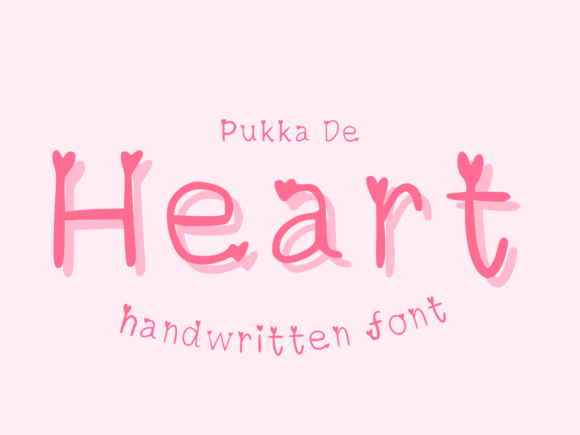
Bring a Little Love to Your Designs
Have you ever stared at a blank page, feeling the pressure to create something truly special? Maybe you’ve been tasked with designing a wedding invitation, a birthday card, or even a social media post that captures the essence of love. Whatever the occasion, the key to making your design stand out is to add a touch of personality and whimsy. That’s where the Heart Font comes in – a delightful handwritten font that’s sure to bring a smile to your face and a little extra love to your designs.
With its unique and adorable touches, the Heart Font is the perfect addition to any design project. Whether you’re a seasoned pro or just starting out, this font is a valuable tool that will help you create designs that truly come alive. By incorporating the Heart Font into your work, you’ll be able to add a touch of warmth and personality to your designs, making them truly special and memorable.
• Unique Characteristics: Heart Font features a unique, hand-drawn design with a mix of serif and script elements, giving it a warm and inviting feel.
Heart Font Review
Overall, I was excited to dive into the Heart Font and see how it would perform in various design contexts. While it has its strengths, there are also some limitations that might impact its usability.
• Unique Character: The Heart Font has a distinct, playful feel that’s perfect for projects that need a touch of whimsy.
• Expressive Variations: The font offers a range of styles and weights that allow for nuanced expression and added emphasis.
• Clean Lines: The font’s clean lines and minimal ornamentation make it easy to read, even at smaller sizes.
• Limited Support: I found that the font doesn’t support certain special characters, which can be a problem for designers working with languages that rely on these characters.
• Consistency Issues: I noticed some inconsistencies in the font’s spacing and kerning, particularly at smaller font sizes.
• Not Ideal for Body Text: While the Heart Font is great for headlines and titles, it’s not the most readable choice for body text due to its condensed width.
The Heart Font is a charming addition to any designer’s toolkit, but its limitations make it less versatile than I’d like. With some tweaks to address the issues I mentioned, this font has the potential to be a real showstopper.
The Heart Font is ideal for:
• Valentine’s Day and romantic-themed designs.
• Wedding invitations and stationery.
• Love-themed social media graphics.
For the most effective use of the Heart Font, keep the design simple and let the font be the focal point.